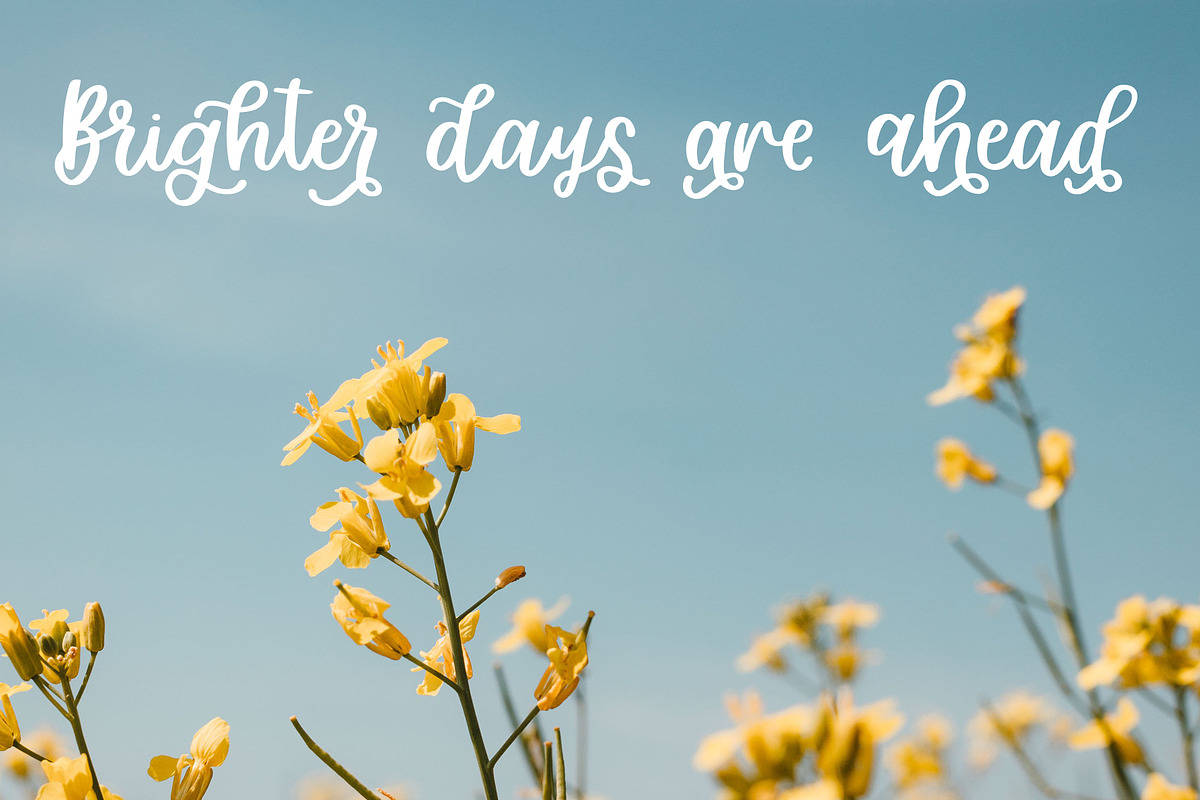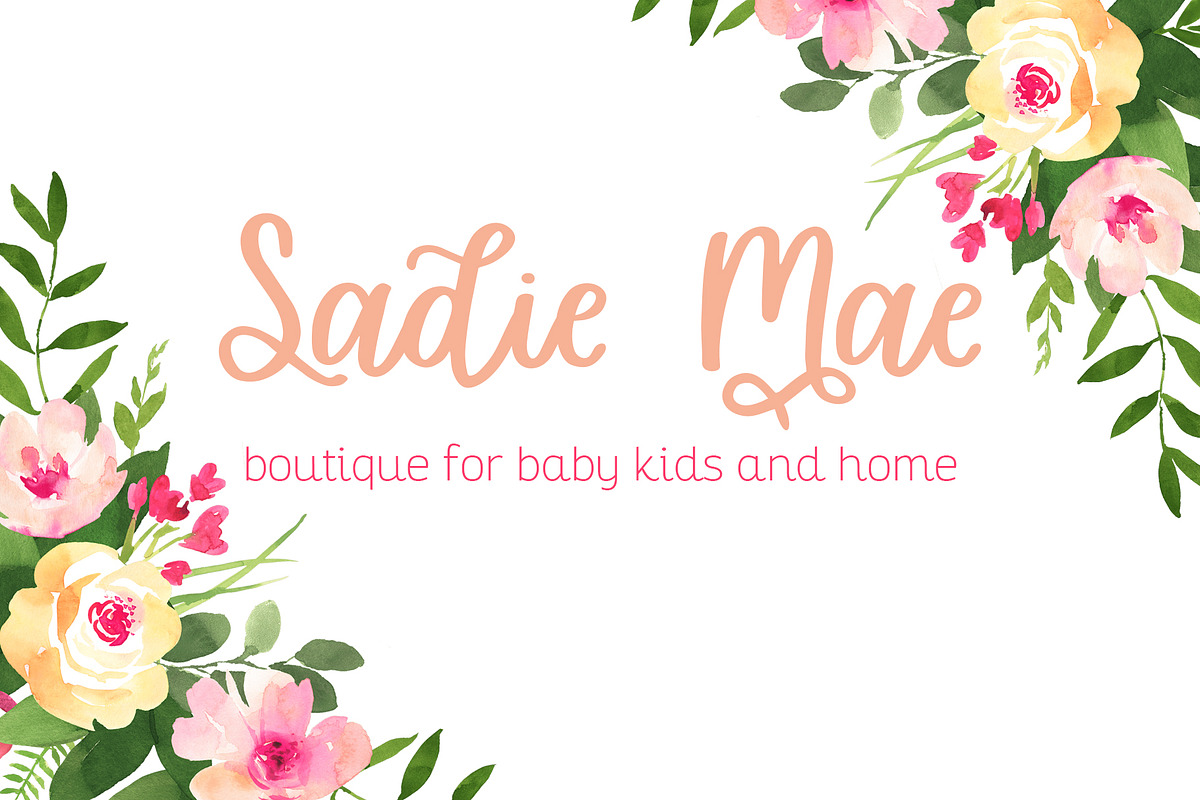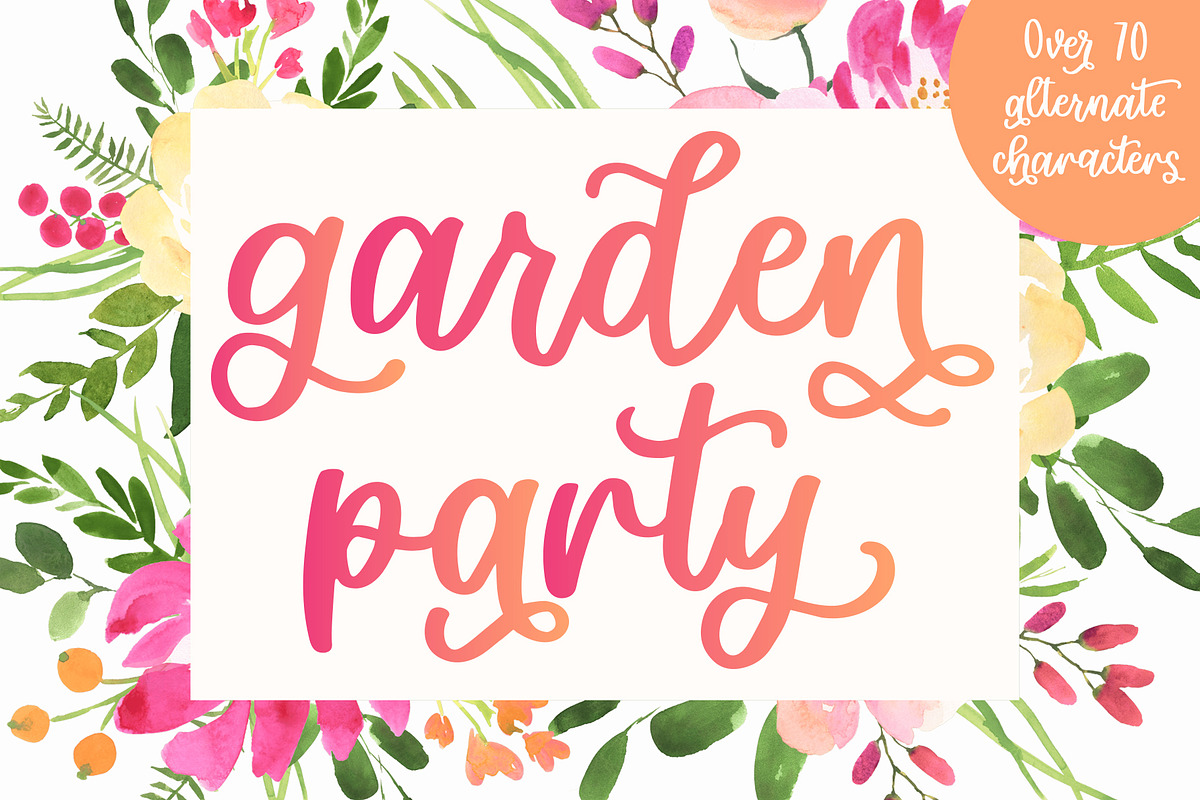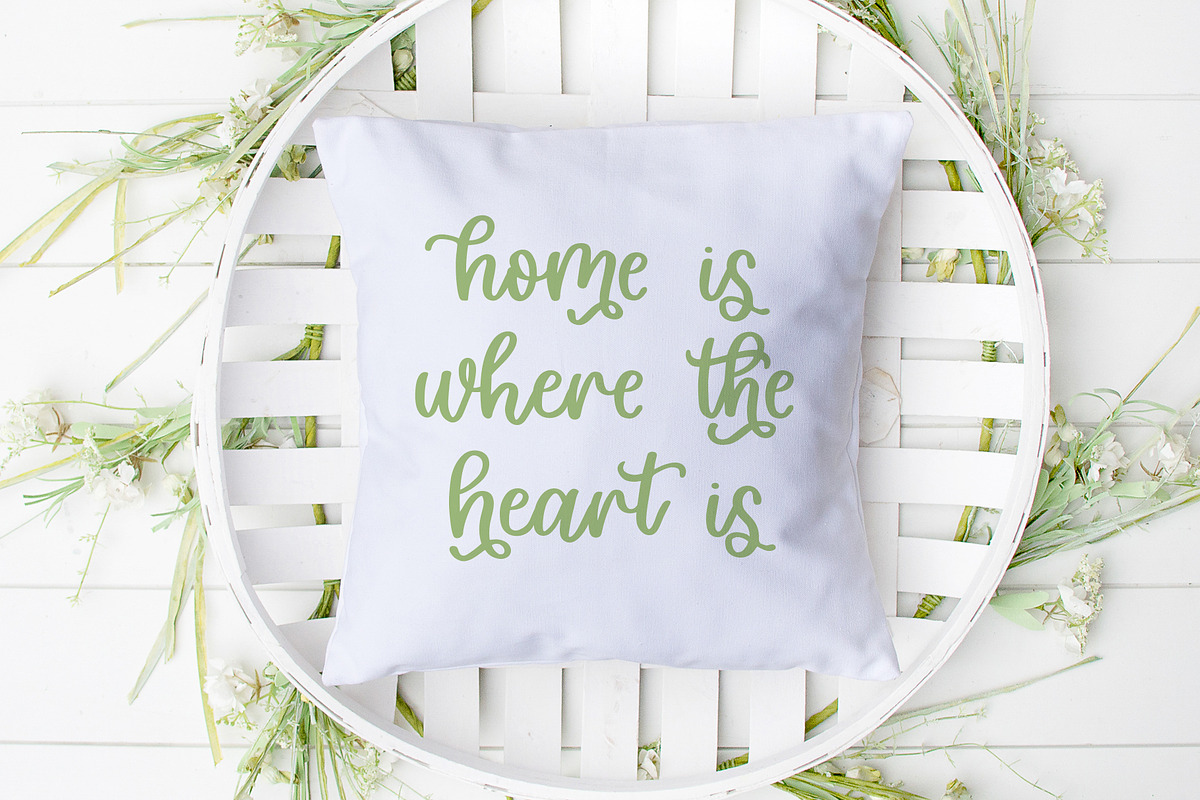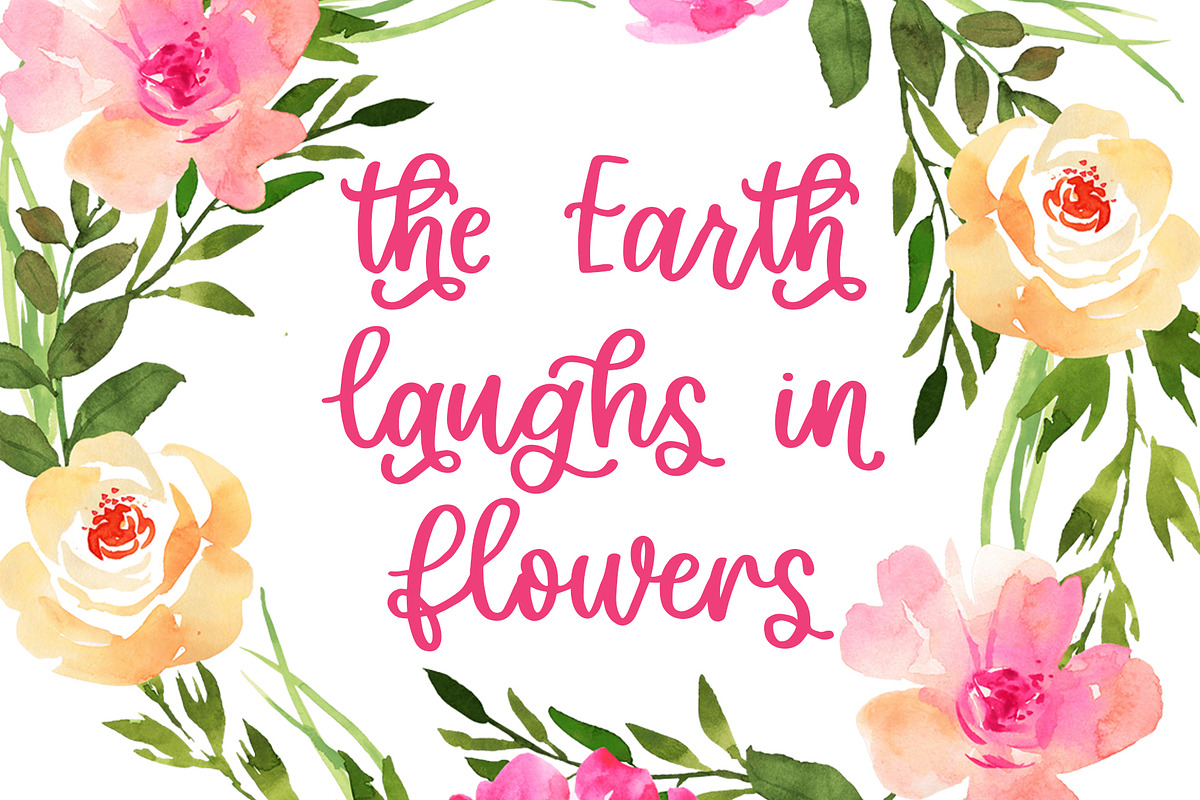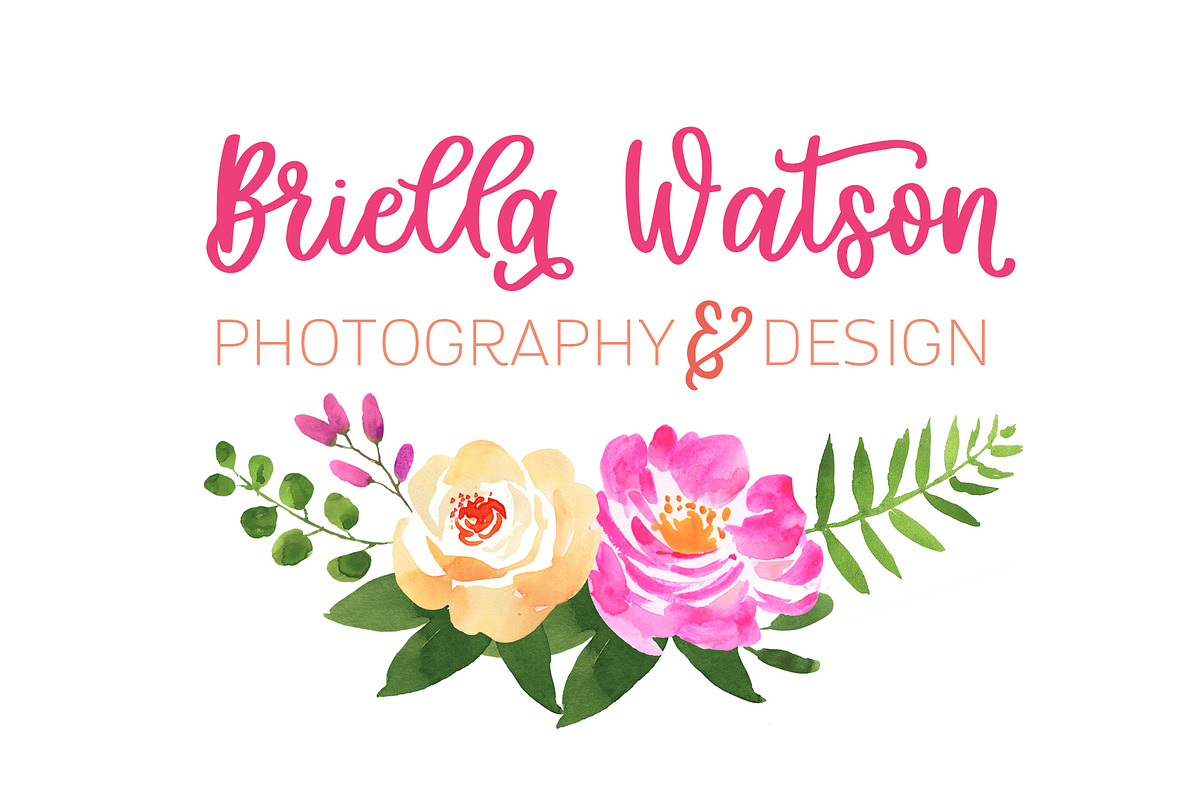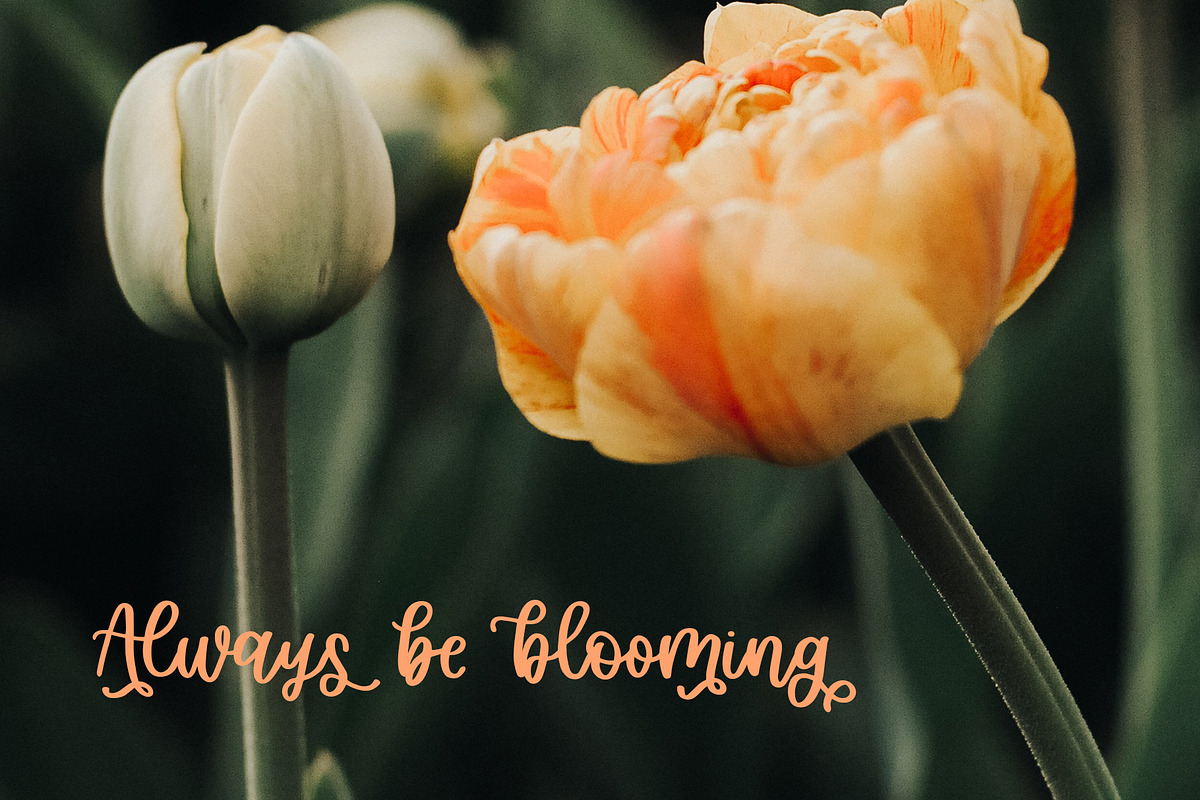
Garden Party, Thick Script Font
Garden Party is a smooth thick script font perfect for crafting with. It comes packed with tons of alternate characters to help give your designs a realistic hand lettered feel.
Garden Party Features:
46 alternate characters
1 discretionary ligature (a total of 74 alternate characters)
- 4 initial characters
- 14 end characters
- 46 alternate characters
- 9 standard ligatures
- 1 discretionary ligature (a total of 74 alternate characters)